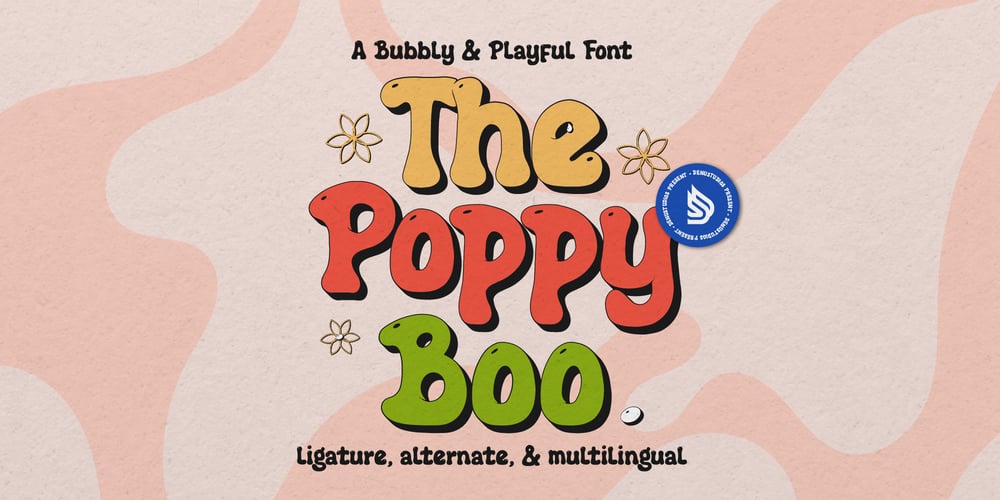
Poppy Boo Font Family was designed by Dede Nugraha and published by Denustudio. Poppy Boo contains 2 styles and family package options. Poppy Boo | Bubbly And Playful Font, from Denustudios, suitable for any projects such as: logos, branding projects, homeware designs, product packaging, mugs, quotes, posters, shopping bags, t-shirts, book covers, name card, invitation cards, greeting cards, label, photography, watermark, special events, and all your other lovely projects that need Bubbly And Playful Font a taste.===========================================================================What’s Included : Regular and Italic Web Font Standard glyphs Alternate and Ligature Works on PC & Mac Simple installations Accessible in the Adobe Illustrator, Adobe Photoshop, Adobe InDesign, even work on Microsoft Word and Other Software. PUA Encoded Characters – Fully accessible without additional design software. Fonts include multilingual support Hope you enjoy with our font!